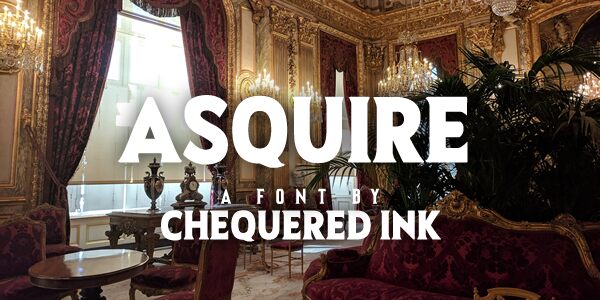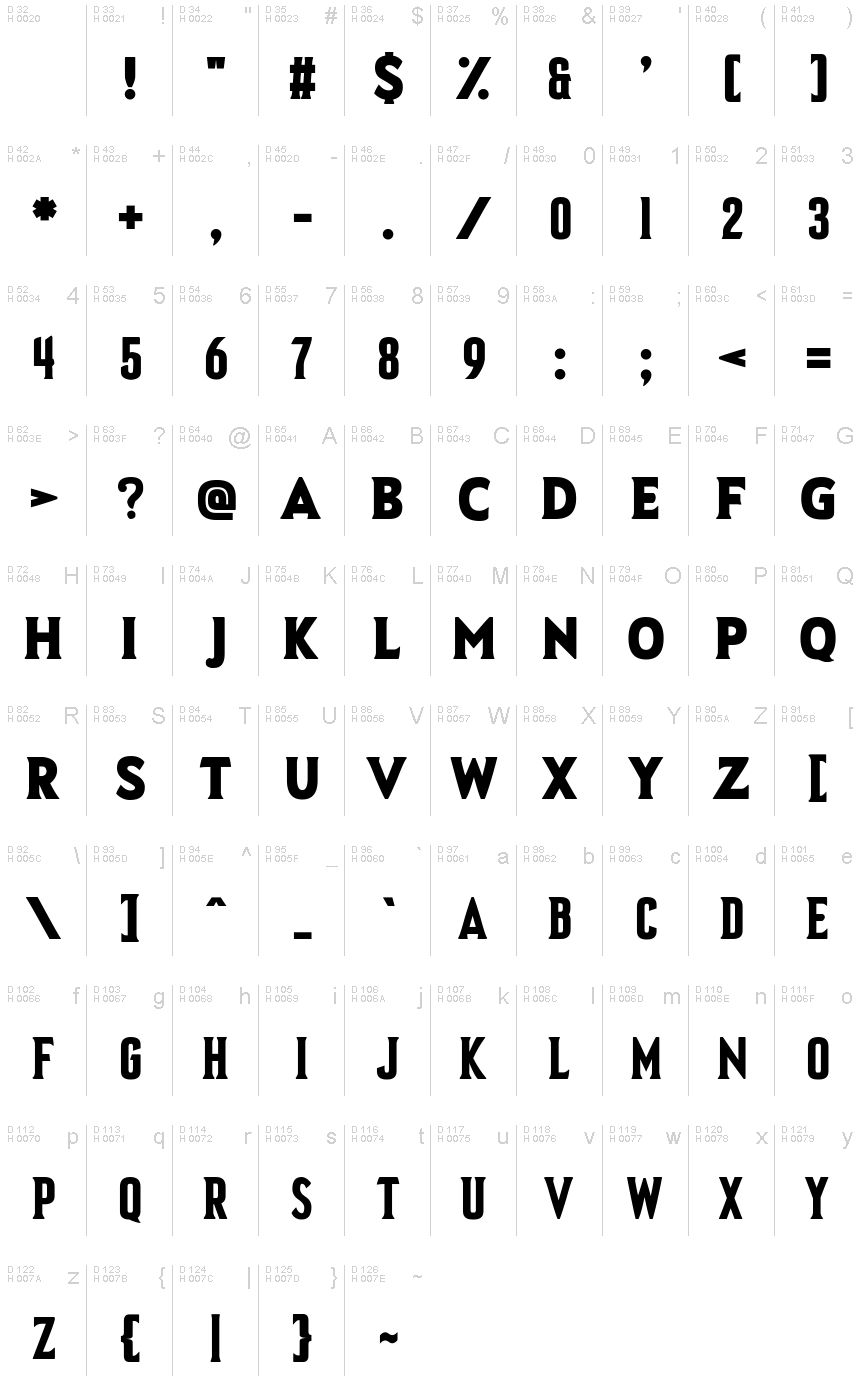
Asquire
Asquire, crafted by Chequered Ink, is a striking display font that exudes retro charm. Its bold weight and condensed width create a powerful visual impact, making it an excellent choice for eye-catching headlines and logos. The vintage aesthetic of Asquire adds a touch of nostalgia, perfect for designs that seek to evoke classic elegance or playful retrospection.
Ideal for branding projects, posters, and any creative endeavor requiring a distinctive and memorable typeface, Asquire stands out with its unique character. Its robust design ensures readability while maintaining an artistic flair, making it versatile enough for both digital and print media. Whether you're aiming to capture the spirit of a bygone era or simply want to make a bold statement, Asquire is the perfect font to elevate your design projects.